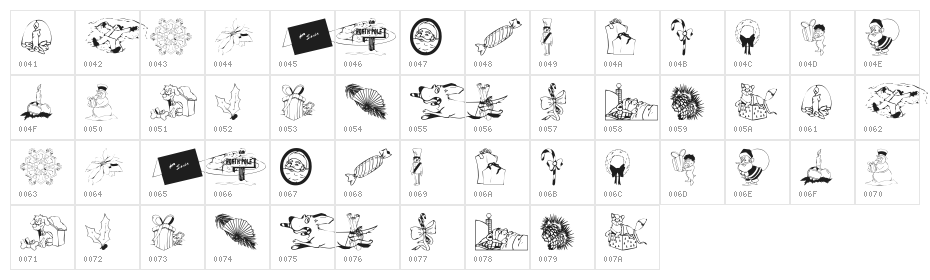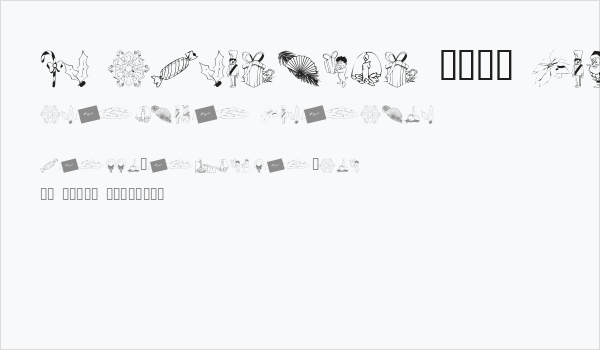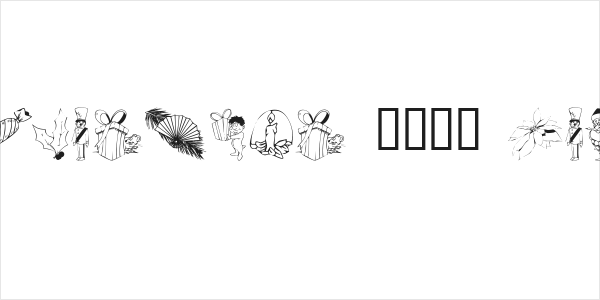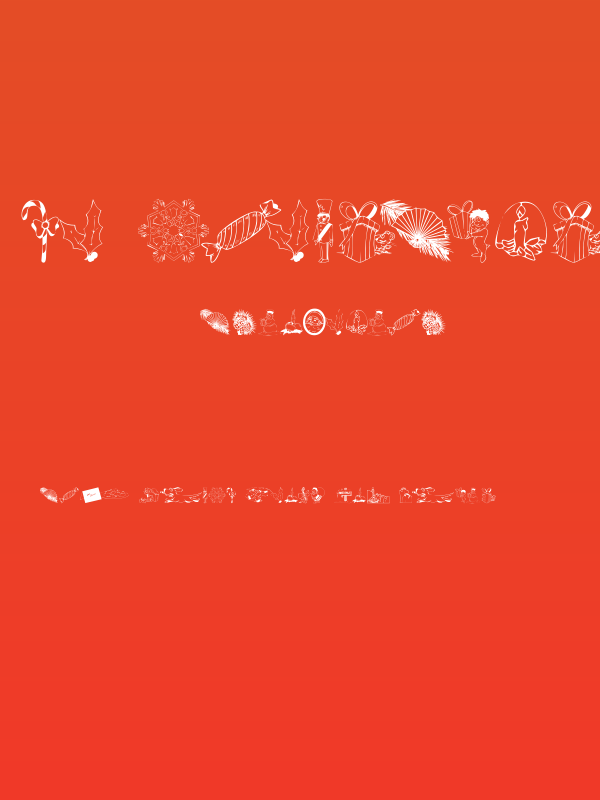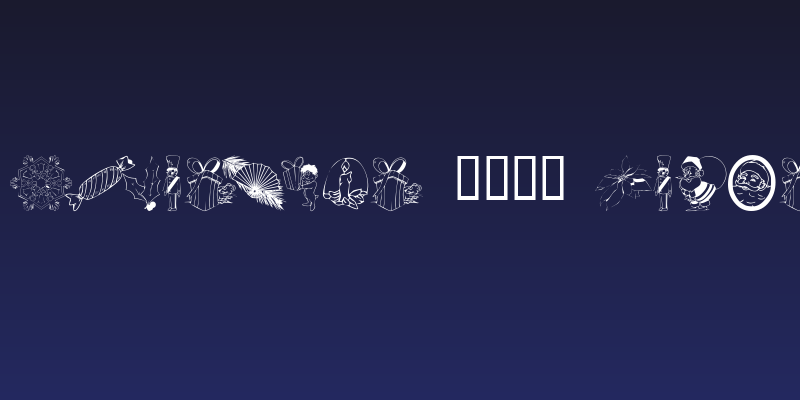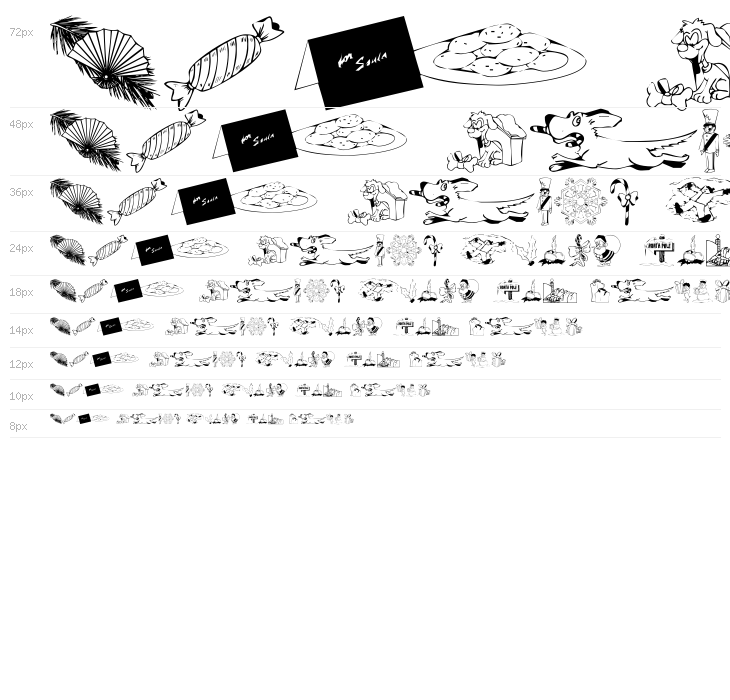
KR Christmas 2002 Dings 4 Font
KR Christmas 2002 Dings 4 Description
This is a decorative font featuring a collection of Christmas-themed dingbats. Each character is a unique illustration related to the holiday season, including images of Santa Claus, reindeer, snowflakes, gifts, and other festive elements. The style is playful and whimsical, capturing the joyful spirit of Christmas. The illustrations are detailed and varied, providing a wide range of options for creative projects. This font is perfect for adding a festive touch to holiday cards, invitations, and decorations.
| Use Case | Logos, Headlines, Decorative elements |
| Proposed Projects | Ideal for holiday cards, festive invitations, Christmas decorations, and seasonal marketing materials. |